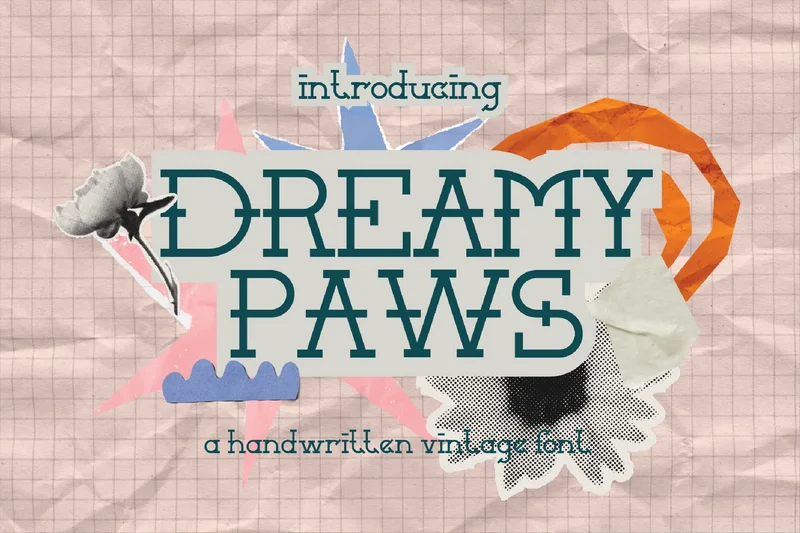
Dreamypaws – Playful Font
Dreamy Paws is a playful display font with soft, rounded shapes that exude warmth and charm. Perfect for children’s books, posters, packaging, and any design that needs a cozy, joyful touch.